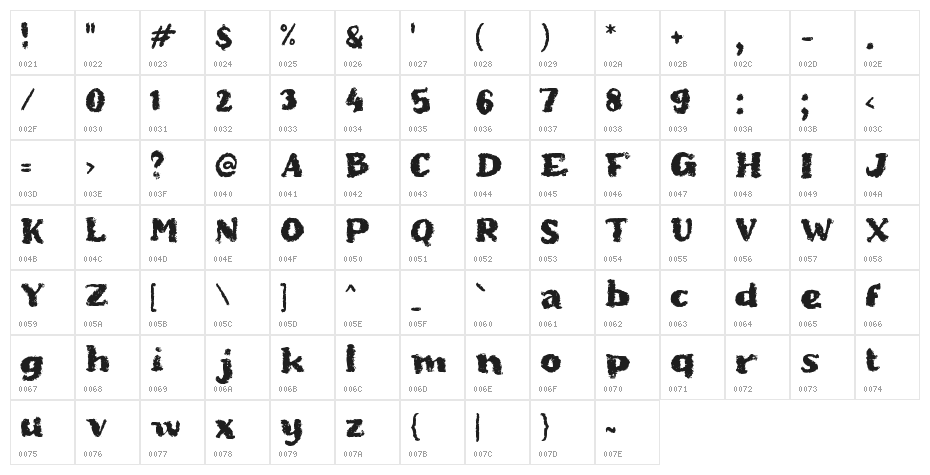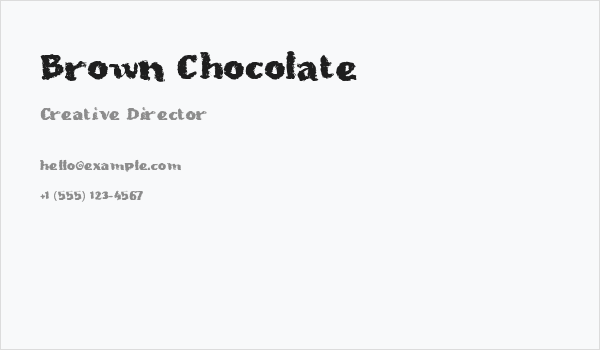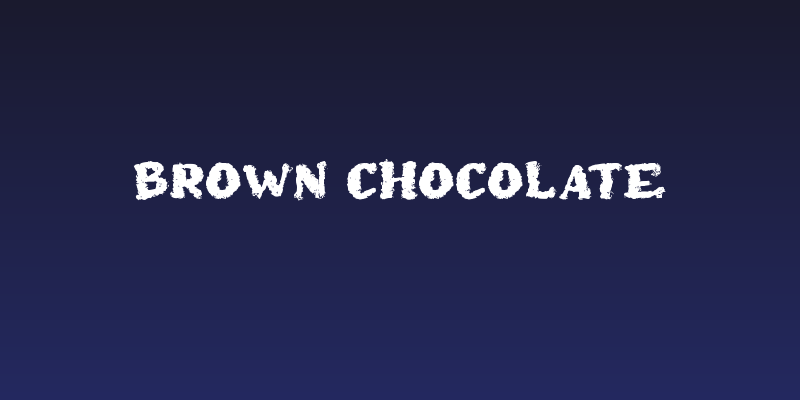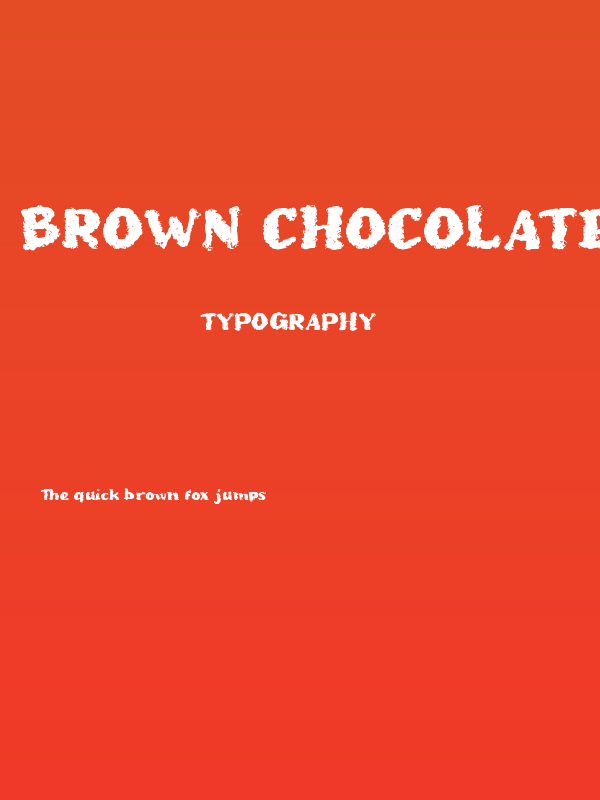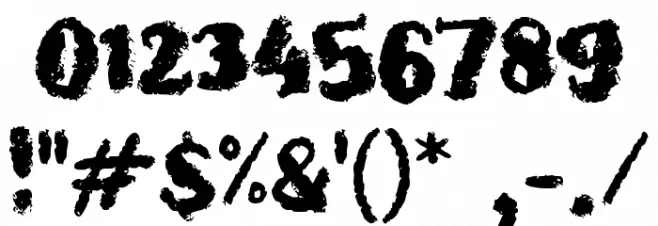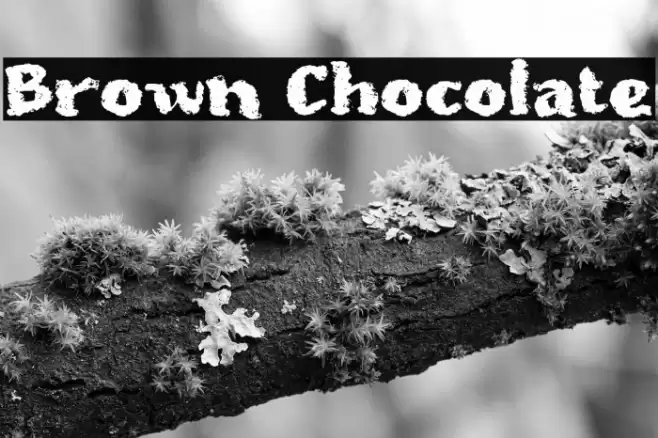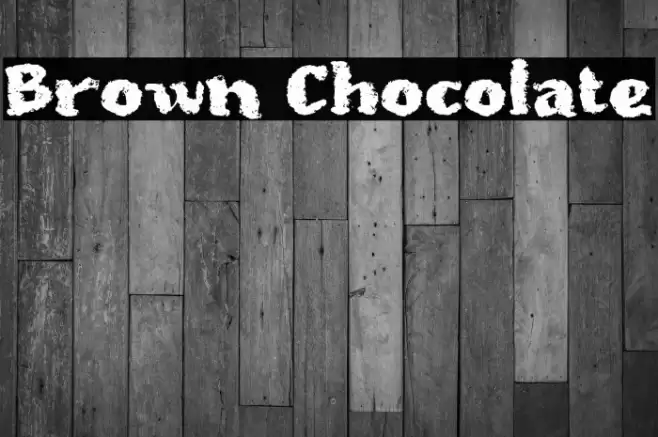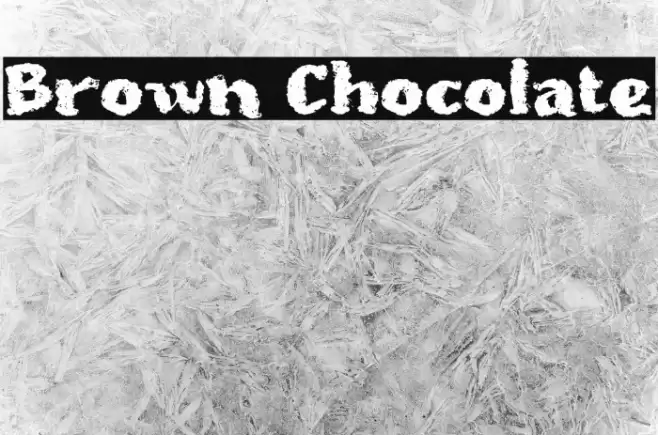
Brown Chocolate Font
Brown Chocolate Description
This font features a bold, textured style that mimics the appearance of chocolate or paint splatters. The characters are robust and have a playful, artistic flair, making them stand out with their unique, uneven edges. The uppercase and lowercase letters maintain a consistent style, with a slightly rough texture that adds to the font's charm. Numbers and special characters follow the same design, ensuring a cohesive look across all elements. This font is perfect for projects that require a fun and creative touch, offering a distinctive look that captures attention.
| Proposed Projects | Ideal for creative projects such as posters, children's books, and playful branding. |